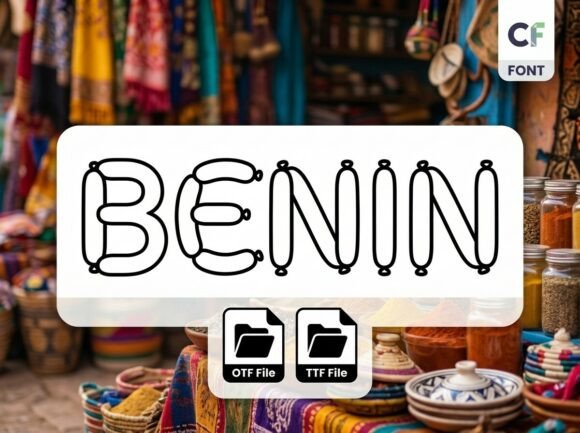
The Flavor of Creativity: Discovering the Benin Font
I’ll never forget the design struggle I faced while working on a project for a local charcuterie board business. My client wanted a logo that captured the essence of their artisanal products, but I was stuck on finding the perfect font. That was until I stumbled upon Benin, a delectable display typeface that added a pinch of magic to my design. In this article, I’ll share my experience with Benin, its unique features, and how to make the most of this savory font.
A Personal Review: What I Love About Benin
Benin has quickly become one of my go-to fonts for creative projects, and here’s why:
- ✨ Unique and eye-catching design: The bold letterforms constructed from rhythmic, hand-drawn “sausage link” silhouettes make Benin stand out from other fonts.
- âś… Perfect for culinary branding: The font’s vintage butcher shop aesthetics and modern gourmet feel make it ideal for independent charcuterie identities, boutique deli logos, and artisan meat packaging.
- đź’ˇ High-impact social media headers: Benin’s heavy structural weight and whimsical personality make it perfect for creating eye-catching social media headers.
While Benin is an amazing font, there are a few things to keep in mind:
- 🤔 Legibility at small sizes: Due to its bold design, Benin may not be the best choice for body text or small font sizes.
- ⚠️ Limited use cases: While Benin is perfect for culinary branding, it may not be suitable for other industries or design projects.
A Practical Guide to Using Benin
- Experiment with OpenType features like ligatures and stylistic alternates to add more flair to your design.
The Story Behind Benin: Designer Inspiration
The story behind Benin is one of passion and creativity. The designer, inspired by the nostalgic feel of vintage butcher shops and the sophistication of modern gourmet branding, created Benin as a way to bridge the gap between these two worlds. With its unique design and bold personality, Benin is a testament to the power of typography in culinary branding.
| What makes Benin unique? | Benin’s bold letterforms, constructed from rhythmic, hand-drawn “sausage link” silhouettes, make it a one-of-a-kind font. |
| Is Benin suitable for body text? | No, Benin is best used for display text or headings due to its bold design and potential legibility issues at small sizes. |
| Does Benin support OpenType features? | Yes, Benin supports OpenType features like ligatures and stylistic alternates, allowing you to add more creativity to your designs. |